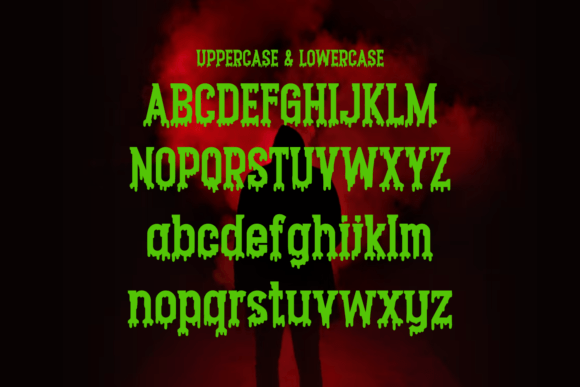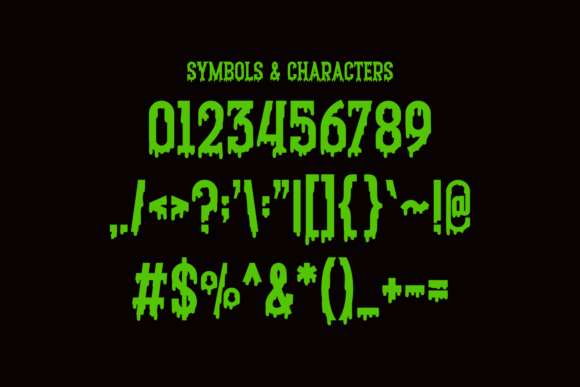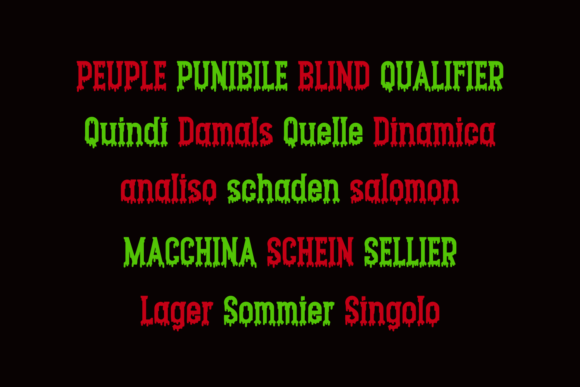
Introduction to Skreat Font
Imagine you’re working on a high-profile branding project, and you need a font that screams creativity and sophistication. You scroll through your design resources, and suddenly, your eyes land on the perfect font – Skreat Font. Its bold display style is sure to make your project stand out from the crowd.
As a designer, you know the importance of having the right tools for the job. Skreat Font is a valuable addition to any design arsenal, offering a high-quality, versatile font that can be used for a wide range of creative projects, from magazine covers to large-scale artwork.
Key Features of Skreat Font
- High-quality design: Skreat Font is designed to meet the needs of creative projects, ensuring a professional and polished look.
- Large character set: With over 200 characters, Skreat Font offers a comprehensive range of glyphs and symbols, making it ideal for creative projects.
- High-resolution design: Skreat Font is designed at 300 DPI, ensuring crisp and clear typography, even at larger font sizes.
- Unique character styles: Skreat Font features a distinctive and creative character style, making it an excellent choice for designers looking to add a touch of personality to their work.
Honest Review: Skreat Font
As a designer, I’m always on the lookout for high quality fonts that can elevate my creative projects. Recently, I stumbled upon the Skreat Font, and I must say, it’s been a game-changer for my design work.
- ✨ Unique and modern design aesthetic that sets my projects apart
- ✨ High quality font files that are crisp and clear, even at small sizes
- ✨ Transparent background, making it easy to use on any design resource
- ⚠️ Limited character set, which may be a concern for designers working on longer texts
- ⚠️ Not suitable for very small font sizes, as the letters may become distorted
Overall, I’m thoroughly impressed with the Skreat Font. Its unique design and high quality make it a valuable addition to any designer’s toolkit. While there are some limitations, I believe the benefits far outweigh the drawbacks.
How to Use Skreat Font
The Skreat Font is a high-quality, versatile design resource ideal for creative projects that require a unique touch. With a transparent background, this font is perfect for adding a professional finish to your work.
The Skreat Font is ideal for creative projects such as:
- Business cards and brochures
- Marketing materials and social media graphics
Tips for Getting the Most Out of the Skreat Font
To get the most out of the Skreat Font, be sure to:
- Use it in combination with other design elements to create a cohesive look.
- Experiment with different font sizes and styles to add visual interest.
- Take advantage of the transparent background to add depth and dimension to your designs.